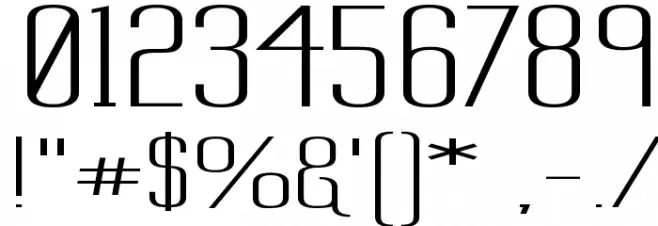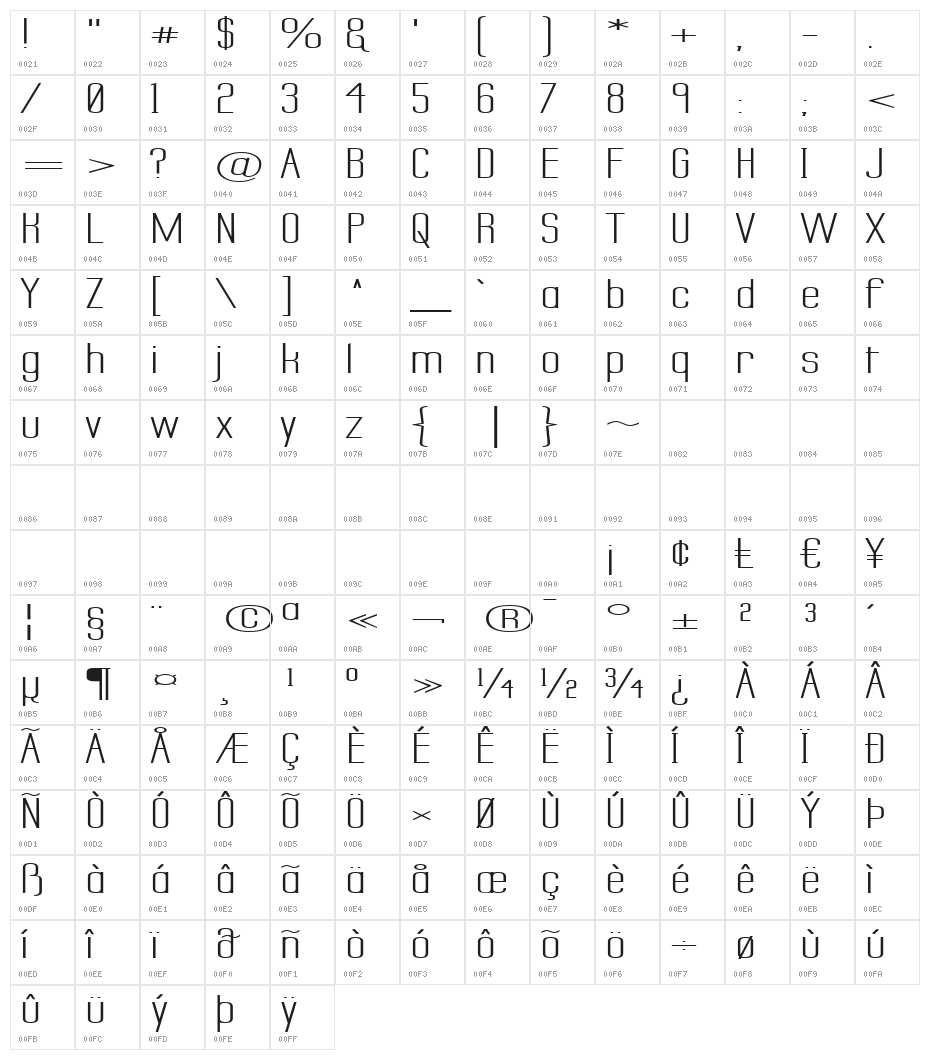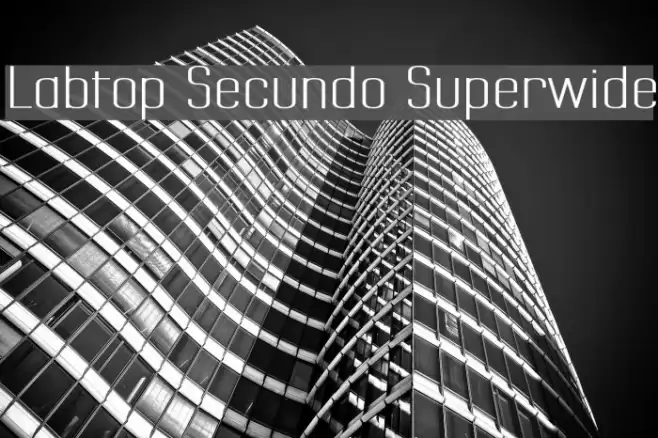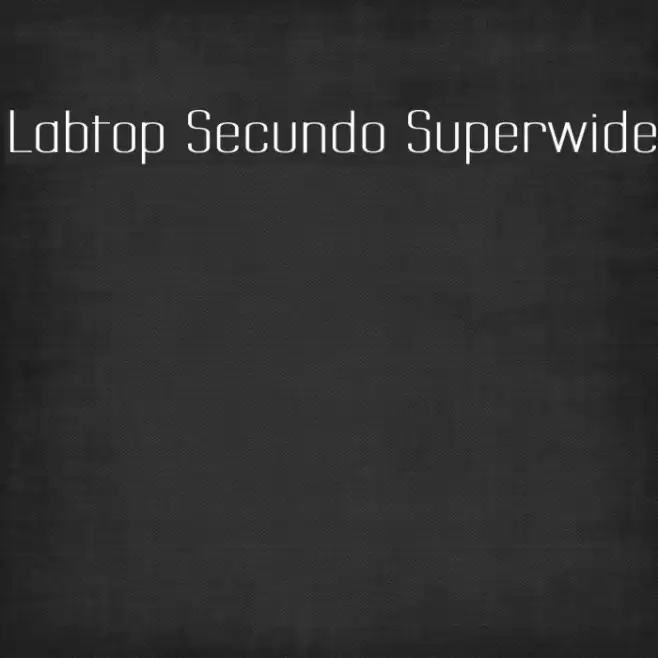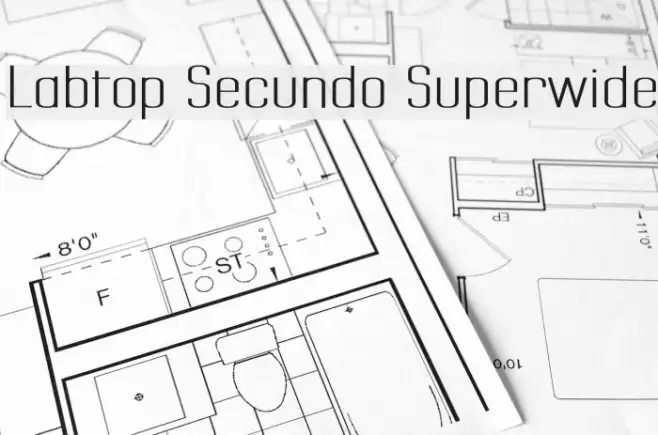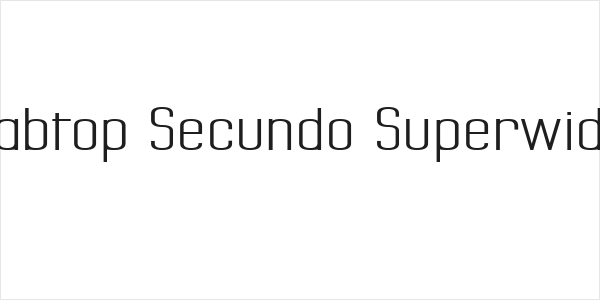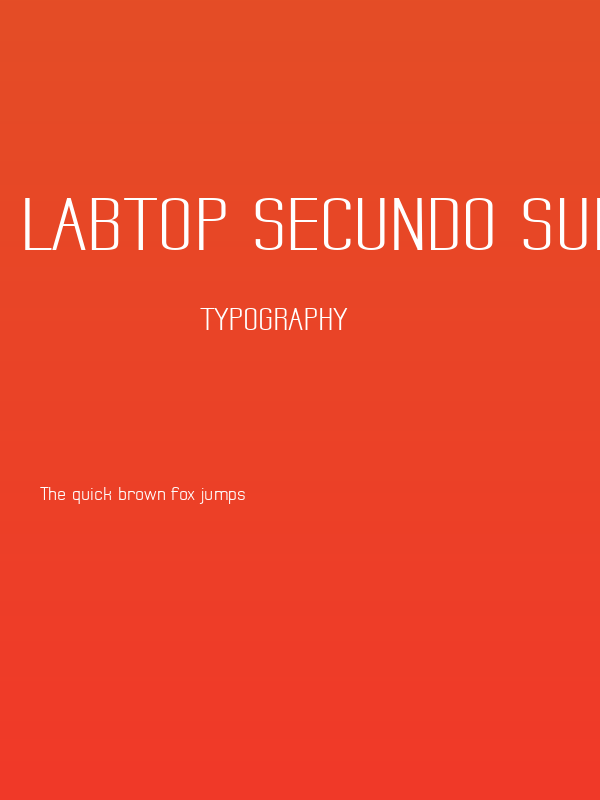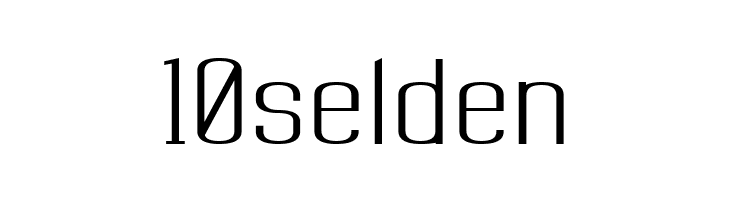
Labtop Secundo Superwide Font
Labtop Secundo Superwide Description
This font features a sleek and modern design with a superwide stance, giving it a unique and contemporary appearance. The characters are elongated and have a consistent stroke width, which contributes to its clean and minimalistic look. The uppercase letters are tall and commanding, while the lowercase letters maintain a balanced proportion, ensuring readability. The numerals are distinct and align well with the overall style, making them suitable for various applications. The special characters are designed to complement the alphabet, maintaining the font's cohesive aesthetic.
| Proposed Projects | Ideal for branding, advertising, and editorial design where a modern and distinctive look is desired. |